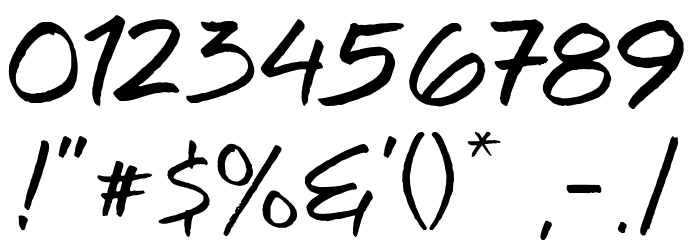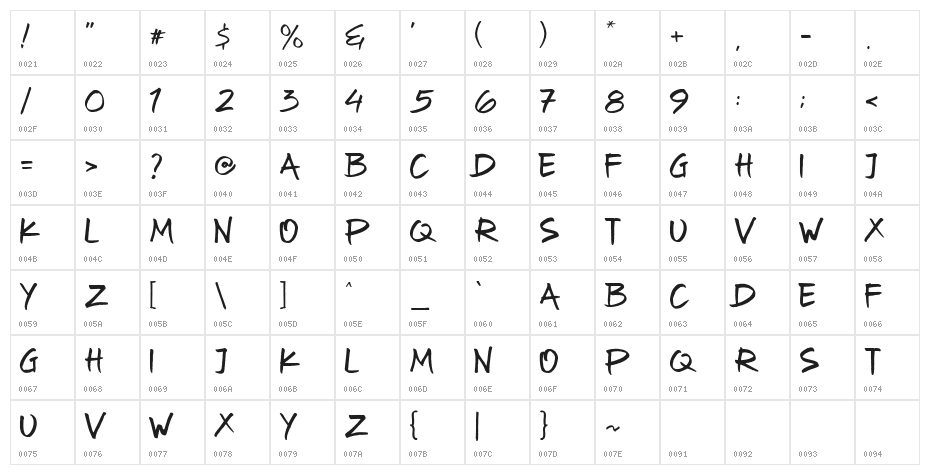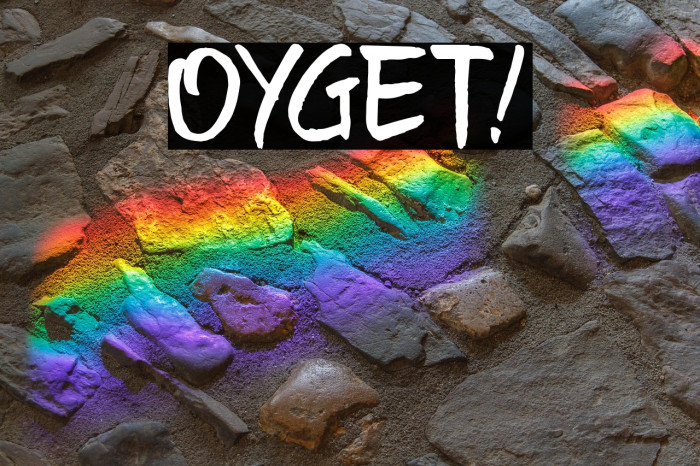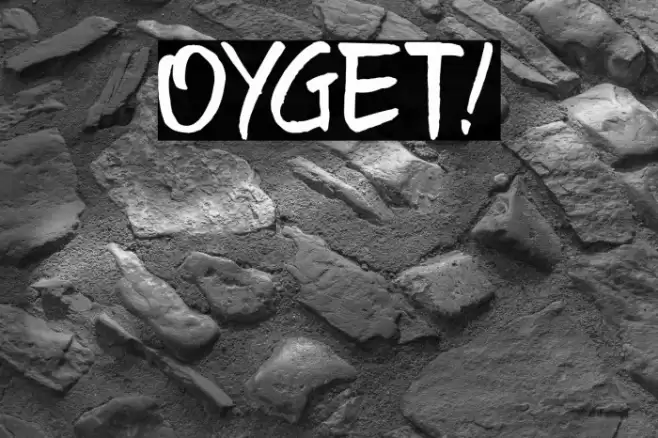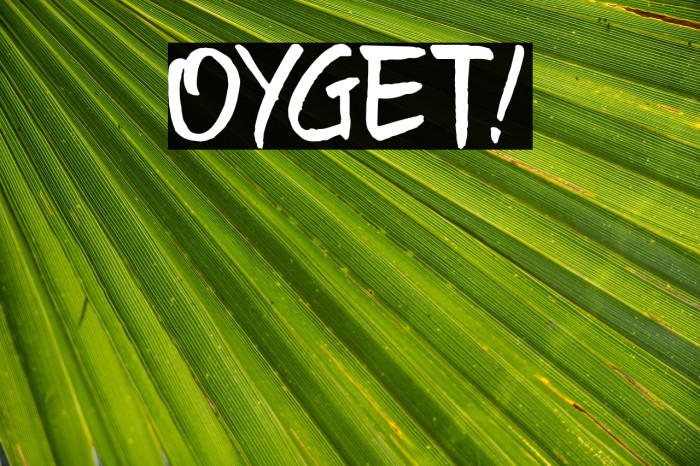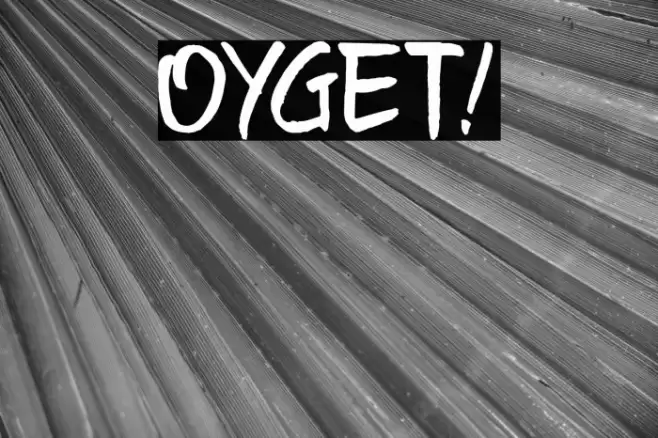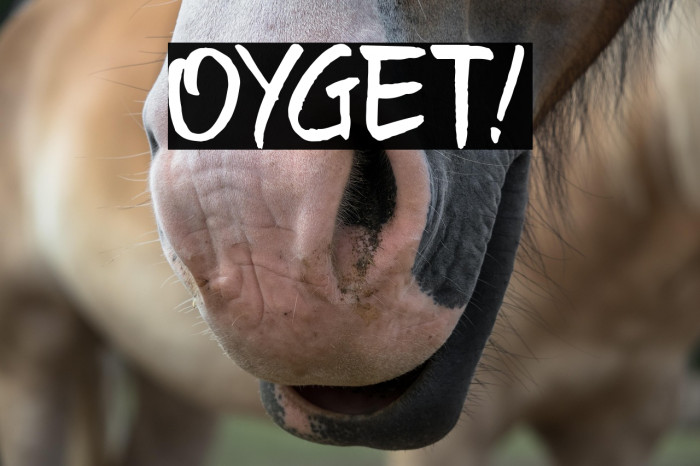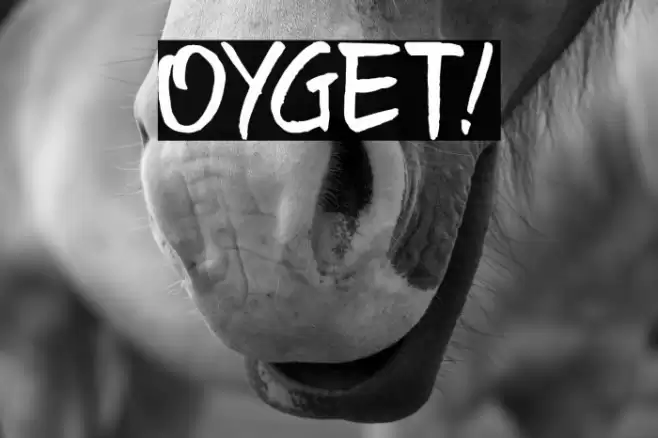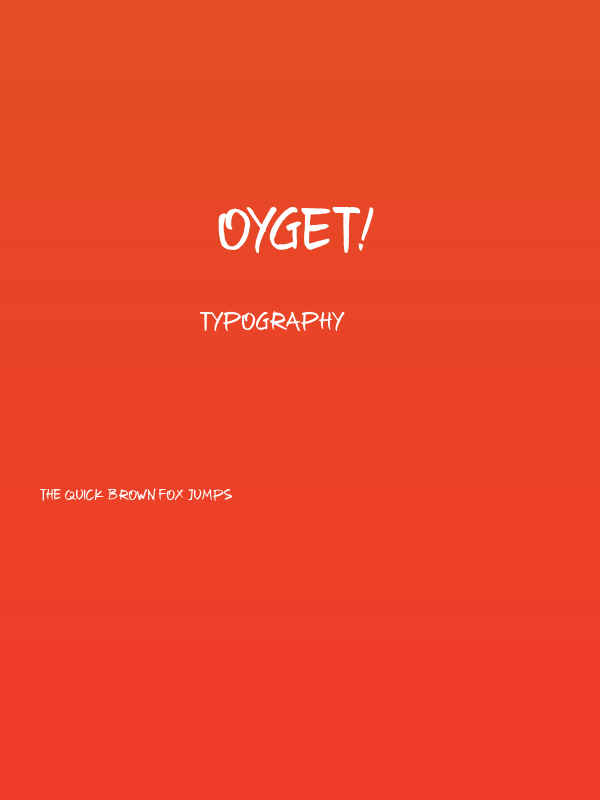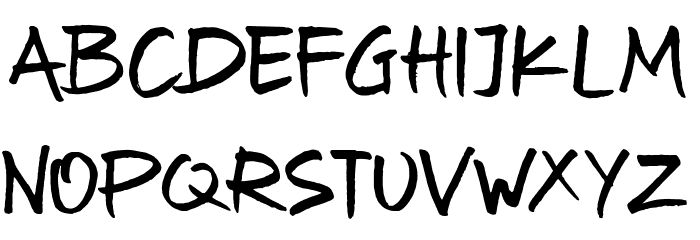
Oyget! Font
Oyget! Description
This font exudes a bold and energetic handwritten style, characterized by its dynamic and slightly irregular strokes that mimic the natural flow of a marker or brush pen. The uppercase and lowercase letters maintain a consistent height, contributing to a cohesive and balanced appearance. The numbers and special characters are crafted with the same lively flair, ensuring uniformity across all glyphs. This font's playful yet assertive nature makes it suitable for projects that require a personal touch or a sense of spontaneity.
| Proposed Projects | Ideal for branding, posters, social media graphics, and creative projects that need a personal and lively touch. |